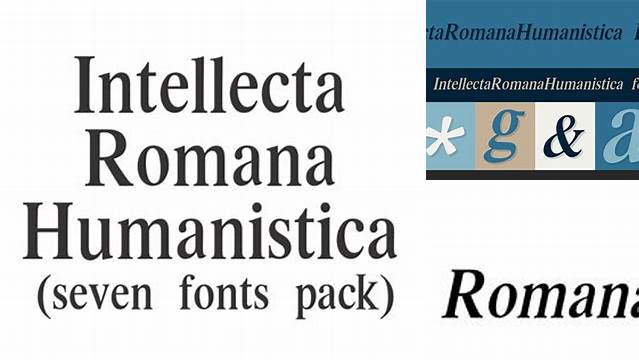
Let's dive into the world of typography, guys! Today, we're talking about the Intellecta Romana font, a classic and elegant typeface that can add a touch of sophistication to any project. Whether you're designing a website, creating a logo, or working on a print project, this font might just be the perfect fit. This article will guide you on how to get an intellecta romana font free download, explore its features, and provide tips on how to use it effectively. So, let’s get started!
1. What is Intellecta Romana Font?
Intellecta Romana font is a typeface that exudes timeless elegance and classical charm. It’s inspired by the ancient Roman letterforms, which are known for their balanced proportions and refined strokes. This font is characterized by its clean lines, graceful curves, and a subtle serif that adds a touch of formality. When you're looking for an intellecta romana font free download, it's essential to understand what makes this font unique and how it can enhance your designs. The font's historical roots make it suitable for projects that require a sense of tradition and sophistication, such as invitations, certificates, and branding materials for high-end products or services. Its versatility also allows it to be used in modern contexts, blending classical aesthetics with contemporary design. Understanding its history and characteristics is the first step in making the most of this font. Choosing the right font can significantly impact the overall aesthetic and message of your design. Intellecta Romana, with its classic appeal, can bring a level of sophistication and readability that many other fonts simply can't match. So, whether you’re designing a website, a book cover, or a business card, considering this font can elevate your work to a new level. Remember to always check the licensing terms when you find an intellecta romana font free download to ensure you are using it legally and ethically. This attention to detail will help you create beautiful designs with peace of mind.
2. History and Origin of Intellecta Romana
To truly appreciate the Intellecta Romana font, it's important to understand its historical roots. This font family draws inspiration from the ancient Roman scripts, which were meticulously crafted and known for their clarity and elegance. The Roman letterforms, developed over centuries, have influenced countless typefaces, and Intellecta Romana is a testament to their enduring appeal. Before you search for an intellecta romana font free download, take a moment to delve into its rich history. The origins of Roman typography can be traced back to the first century AD, with inscriptions on monuments and public buildings serving as early examples. These letters were characterized by their serifs, the small decorative strokes at the end of each letter, which helped to improve readability and add a sense of refinement. Over time, these forms evolved, and during the Renaissance, they were revived and refined by humanist scholars and typographers. The Intellecta Romana font captures this historical essence, making it a great choice for projects that need to convey a sense of tradition and authority. Its design reflects the attention to detail and craftsmanship that was characteristic of Roman scribes and stonemasons. When you use this font, you are not just choosing a typeface; you are also incorporating a piece of history into your work. This makes it particularly suitable for academic publications, historical documents, and other projects that require a connection to the past. Moreover, understanding the history behind the font can inspire you to use it in innovative ways, blending classical elements with modern design sensibilities. Always ensure that when you seek an intellecta romana font free download, you are getting a high-quality version that stays true to its historical roots.
3. Key Features of Intellecta Romana
The Intellecta Romana font boasts several key features that make it a standout choice for designers. Its elegant serifs, balanced proportions, and clean lines contribute to its overall readability and visual appeal. Whether you're searching for an intellecta romana font free download for a specific project or just exploring options, knowing these features will help you decide if it’s the right fit. One of the most notable aspects of Intellecta Romana is its versatility. It works well in both print and digital media, making it suitable for a wide range of applications. The font's serifs add a touch of formality, making it ideal for formal documents, invitations, and certificates. At the same time, its clean design ensures that it remains legible even at smaller sizes, making it a practical choice for body text as well. Another important feature is the variety of weights and styles available within the Intellecta Romana font family. This can include regular, bold, italic, and condensed versions, providing you with plenty of options to create visual hierarchy and add emphasis to your text. The availability of different styles also allows you to use the font consistently across various design elements, maintaining a cohesive look and feel. Furthermore, the intellecta romana font free download often includes ligatures and alternate characters, which can add a unique and customized touch to your designs. Ligatures are special characters that combine two or more letters into a single glyph, creating a more fluid and aesthetically pleasing appearance. Alternate characters, on the other hand, provide different versions of certain letters, allowing you to fine-tune the typography to your exact preferences. In summary, Intellecta Romana's key features—its elegant serifs, balanced proportions, versatility, and the availability of multiple styles and special characters—make it a valuable asset for any designer looking to add a touch of class and sophistication to their work.
5. Best Uses for Intellecta Romana Font
The Intellecta Romana font is incredibly versatile, making it suitable for a wide array of design projects. If you've managed to snag an intellecta romana font free download, you're probably wondering how best to put it to use. Let's explore some of the most effective applications for this elegant typeface. One of the most common uses for Intellecta Romana is in formal documents and invitations. Its classic serifs and balanced letterforms lend a touch of sophistication and professionalism, making it perfect for wedding invitations, certificates, and official correspondence. The font’s readability ensures that the text remains clear and legible, while its elegant design adds a touch of class. Another great application for this font is in branding materials. Intellecta Romana can be used to create logos, business cards, and other branding elements that convey a sense of tradition and authority. It’s particularly well-suited for businesses and organizations that want to project an image of stability and trustworthiness. For example, law firms, financial institutions, and educational institutions might find this font to be an excellent choice. In the publishing industry, Intellecta Romana is often used for book titles and chapter headings. Its classic appearance can add a touch of elegance to the overall design of a book, while its readability ensures that the text is easy to read. It’s also a popular choice for historical novels and academic publications, where its connection to ancient Roman scripts can enhance the theme and tone of the content. Furthermore, Intellecta Romana can be used effectively in website design. While it might not be the best choice for body text due to its serifs, it can work well for headlines and other prominent text elements. Using it sparingly can add a touch of sophistication to your website without sacrificing readability. In summary, the best uses for Intellecta Romana font range from formal documents and branding materials to book design and website headings. Its versatility and timeless elegance make it a valuable asset for any designer looking to add a touch of class to their work.
6. Pairing Intellecta Romana with Other Fonts
One of the keys to effective typography is knowing how to pair fonts. The Intellecta Romana font, with its classic elegance, can be beautifully complemented by a variety of other typefaces. If you've secured your intellecta romana font free download, experimenting with different pairings can help you achieve the perfect look for your project. When pairing Intellecta Romana, it's important to consider the overall tone and style you want to convey. A good rule of thumb is to combine a serif font like Intellecta Romana with a sans-serif font for body text. This creates a visual contrast that enhances readability and adds interest to the design. For example, pairing Intellecta Romana with a clean and modern sans-serif font like Helvetica or Arial can create a sophisticated and balanced look. The sans-serif font provides a clean and contemporary contrast to the classic serifs of Intellecta Romana, making the design feel both timeless and modern. Another option is to pair Intellecta Romana with a more humanist sans-serif font like Open Sans or Lato. These fonts have a slightly warmer and more approachable feel, which can help to soften the formality of Intellecta Romana. This combination is particularly well-suited for websites and marketing materials that need to convey a sense of trust and reliability. When choosing a font to pair with Intellecta Romana, it’s also important to consider the weight and style of the fonts. If you’re using Intellecta Romana for headlines, you might choose a lighter weight sans-serif font for the body text to create a clear visual hierarchy. Alternatively, you could use a bold weight of the sans-serif font to create a stronger contrast. In addition to sans-serif fonts, Intellecta Romana can also be paired with other serif fonts. However, it’s important to choose a serif font that has a different personality and style to avoid visual clutter. For instance, you could pair Intellecta Romana with a more contemporary serif font like Garamond or Times New Roman, but consider the context and overall design carefully. In conclusion, pairing the Intellecta Romana font effectively involves choosing fonts that complement its classic elegance and enhance readability. By experimenting with different combinations, you can create designs that are both visually appealing and highly functional.
7. Intellecta Romana for Logos and Branding
The Intellecta Romana font is a superb choice for logos and branding, particularly when you want to convey a sense of tradition, elegance, and authority. If you’re considering an intellecta romana font free download for your branding projects, it’s worth understanding why it works so well in this context. Logos are often the first point of contact between a brand and its audience, so it’s crucial to choose a font that accurately reflects the brand’s personality and values. Intellecta Romana, with its classic serifs and refined letterforms, can communicate a sense of history and trustworthiness. This makes it an ideal choice for businesses and organizations that want to project an image of stability and reliability. For instance, law firms, financial institutions, and educational institutions might find this font to be particularly effective for their logos. When using Intellecta Romana for branding, it’s important to consider the overall design and how the font will interact with other elements, such as colors and imagery. A simple and elegant logo design can be incredibly powerful, and Intellecta Romana can serve as the cornerstone of such a design. Pair it with a clean and minimalist color palette to enhance its sophistication, or use it in combination with a classic emblem or icon to reinforce the brand’s identity. The font's versatility also allows it to be adapted to different branding applications, from business cards and letterheads to website headers and marketing materials. Maintaining consistency in font usage across all branding elements is essential for building a strong brand identity, and Intellecta Romana can help you achieve this cohesiveness. Moreover, the availability of different weights and styles within the Intellecta Romana font family provides additional flexibility for branding design. You can use different weights to create visual hierarchy in your logo and marketing materials, or use italic styles to add emphasis and visual interest. In summary, the Intellecta Romana font is an excellent choice for logos and branding when you want to communicate a sense of tradition, elegance, and authority. Its classic serifs and versatile design make it a valuable asset for any business or organization looking to create a strong and lasting brand identity. If you manage to secure an intellecta romana font free download, your branding efforts will surely get a significant boost.
8. Using Intellecta Romana in Print Media
Intellecta Romana font shines in print media, bringing a touch of sophistication and readability to various projects. Whether you've found an intellecta romana font free download or purchased a license, knowing how to leverage its strengths in print can significantly enhance your designs. Print media encompasses a wide range of applications, from books and magazines to brochures and posters. Intellecta Romana’s classic serifs and balanced letterforms make it well-suited for many of these uses. Its legibility ensures that text remains clear and easy to read, even at smaller sizes, making it a practical choice for body text as well as headlines. One of the most common uses for Intellecta Romana in print is in books and magazines. Its elegant appearance can add a touch of class to the overall design, while its readability ensures a comfortable reading experience. It’s particularly effective for historical novels, academic publications, and other genres where a sense of tradition and authority is desired. When using Intellecta Romana in books, consider pairing it with a complementary sans-serif font for headings and subheadings to create a visual hierarchy. Another area where Intellecta Romana excels is in formal invitations and certificates. Its sophisticated serifs and balanced proportions lend a touch of elegance and formality, making it perfect for wedding invitations, graduation certificates, and other important documents. Using it in these contexts can help to convey a sense of prestige and importance. In brochures and marketing materials, Intellecta Romana can be used to create a sense of trust and reliability. Its classic appearance can help to communicate that your brand is established and reputable, making it a good choice for businesses and organizations that want to project an image of stability. Moreover, the font's versatility allows it to be used in a variety of print formats, from small business cards to large posters. Its clean lines and balanced forms ensure that it remains legible even at different sizes, making it a flexible option for all your print design needs. In summary, the Intellecta Romana font is a valuable asset for print media projects. Its classic elegance, readability, and versatility make it suitable for a wide range of applications, from books and magazines to invitations and marketing materials. So, whether you've found an intellecta romana font free download or have a licensed version, you're well-equipped to create stunning print designs.
9. Intellecta Romana in Web Design
Using Intellecta Romana font in web design can add a touch of elegance and sophistication to your online presence. While it might not be the first font that comes to mind for web use due to its serifs, there are definitely ways to make it work beautifully. If you've managed to get an intellecta romana font free download, let's explore how you can incorporate it into your website design. One of the most effective ways to use Intellecta Romana on the web is for headlines and headings. Its classic serifs can create a strong visual impact and help to draw the reader’s eye. Using it sparingly for these elements can add a touch of formality and prestige to your site without sacrificing readability. When using Intellecta Romana for headings, it’s important to ensure that the font size is large enough to maintain legibility. Additionally, consider the line height and letter spacing to ensure that the text is easy to read on different devices. Pairing it with a clean and modern sans-serif font for body text is a great way to balance its formality with contemporary design sensibilities. A sans-serif font like Open Sans or Lato can provide a clean and readable contrast to the classic serifs of Intellecta Romana, creating a visually appealing and user-friendly experience. It’s also important to consider the loading time when using custom fonts on your website. Intellecta Romana, like other fonts, can impact your site’s performance if not optimized correctly. Using web font formats like WOFF and WOFF2 can help to reduce file sizes and improve loading times. Additionally, consider using a content delivery network (CDN) to serve your fonts, which can further enhance performance. Another effective way to use Intellecta Romana in web design is in navigation menus and calls to action. Its elegant appearance can help to draw attention to these key elements and guide users through your site. However, it’s important to ensure that the text remains legible and that the font size is appropriate for mobile devices. In summary, the Intellecta Romana font can be a valuable asset in web design, especially when used strategically for headings, navigation menus, and calls to action. By pairing it with a clean sans-serif font and optimizing it for web use, you can create a website that is both visually appealing and user-friendly. If you’ve found an intellecta romana font free download, you’re well on your way to adding a touch of class to your online presence.